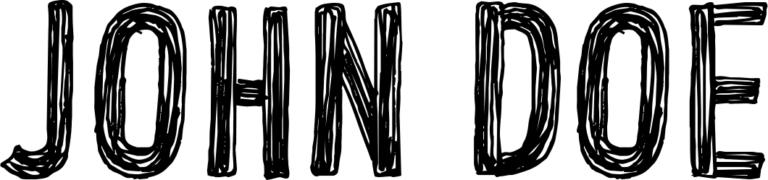
Henry Morgan Font
Designed byRoulette Studio
Care to apply a cool expressive style to your text? Then we bet you’ll be surprised at what Henry Morgan is capable of. Although you won’t get any lowercase nor any numerals by downloading it, what matters is that you’ll get to add an energetic cartoonish touch to your artwork.
As this pirate font features a tinge of mystique as well, you’re going to have a great time customizing your posters, gaming graphics, banners, or else, with this wonderful font.